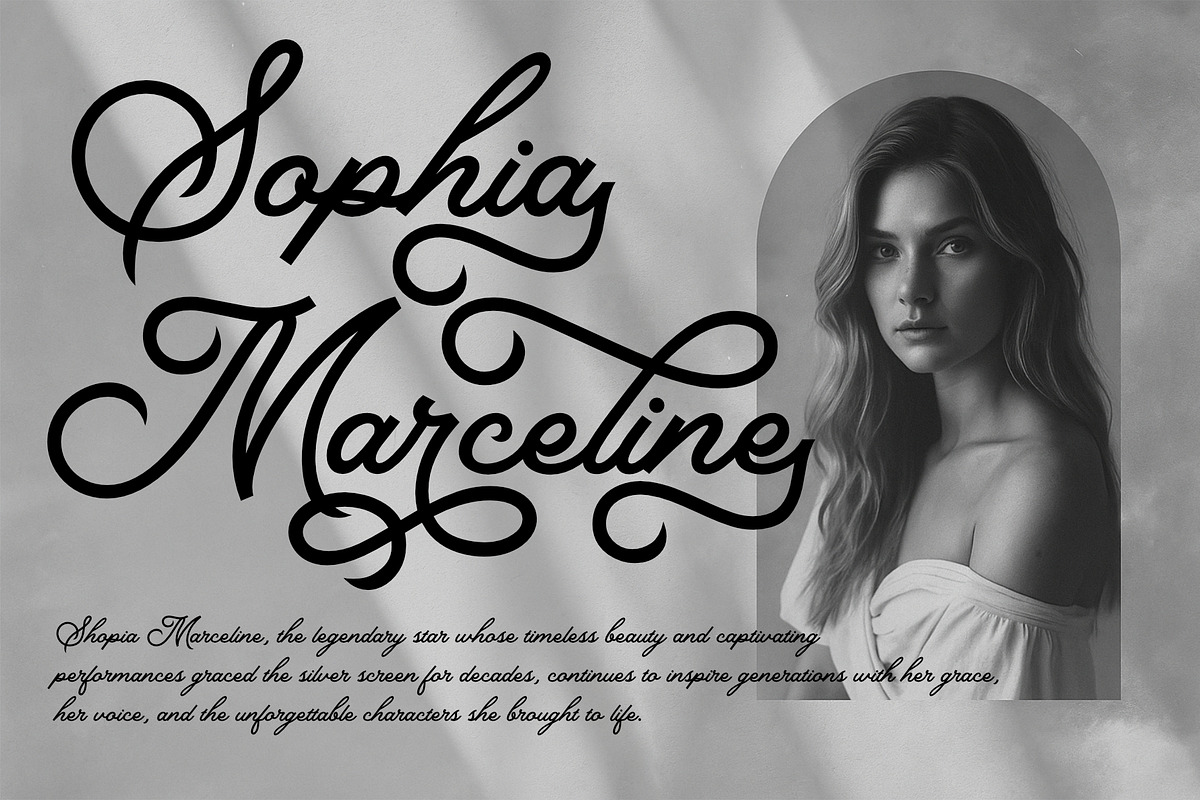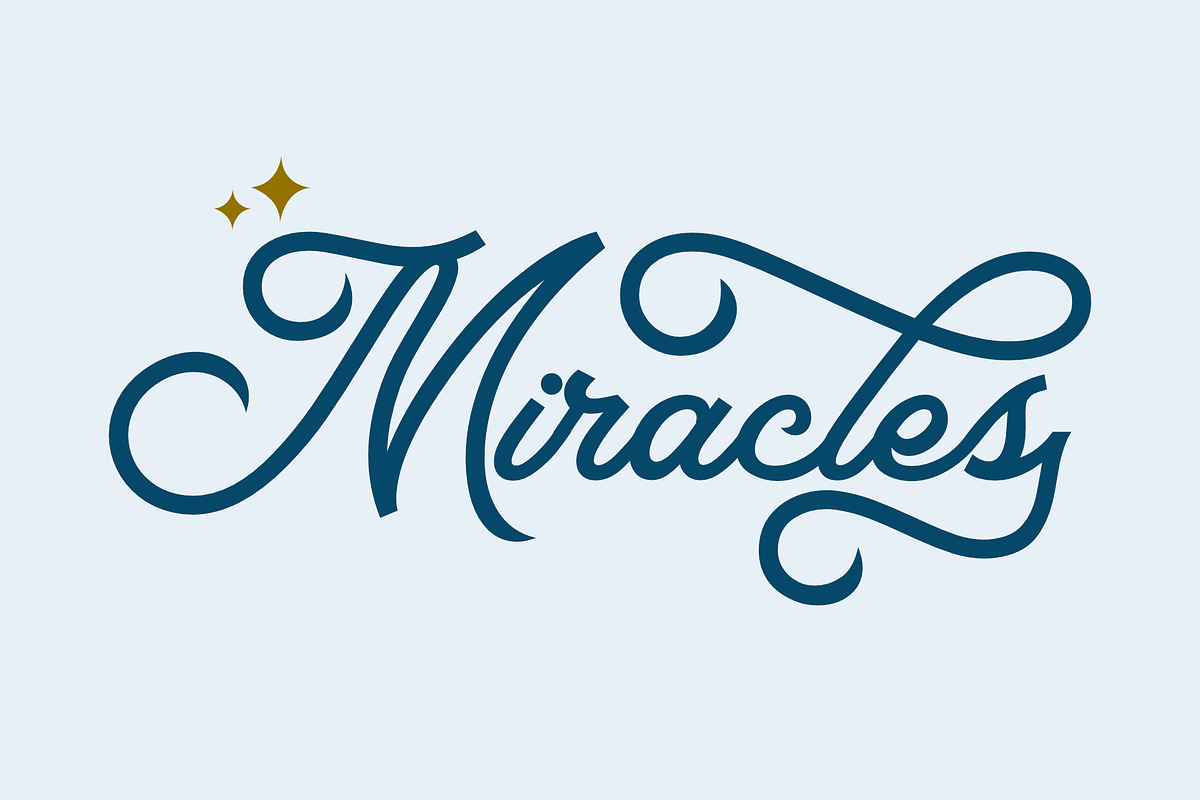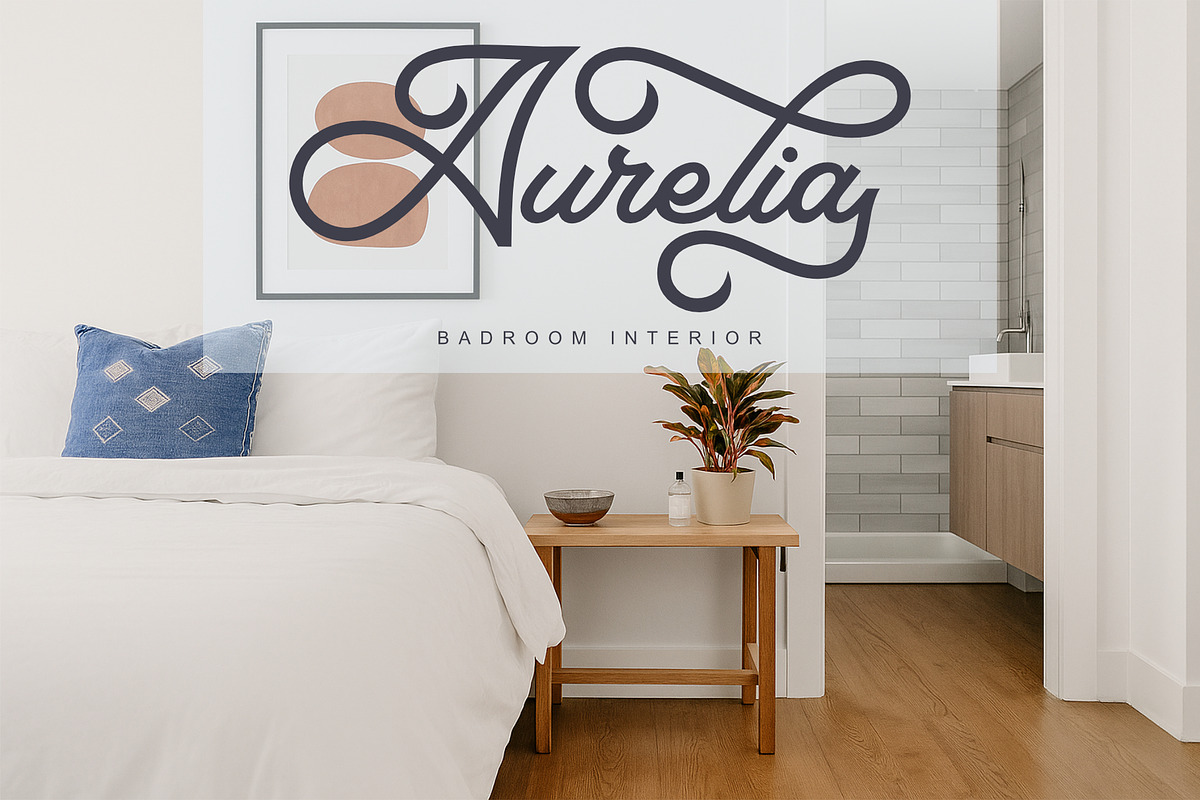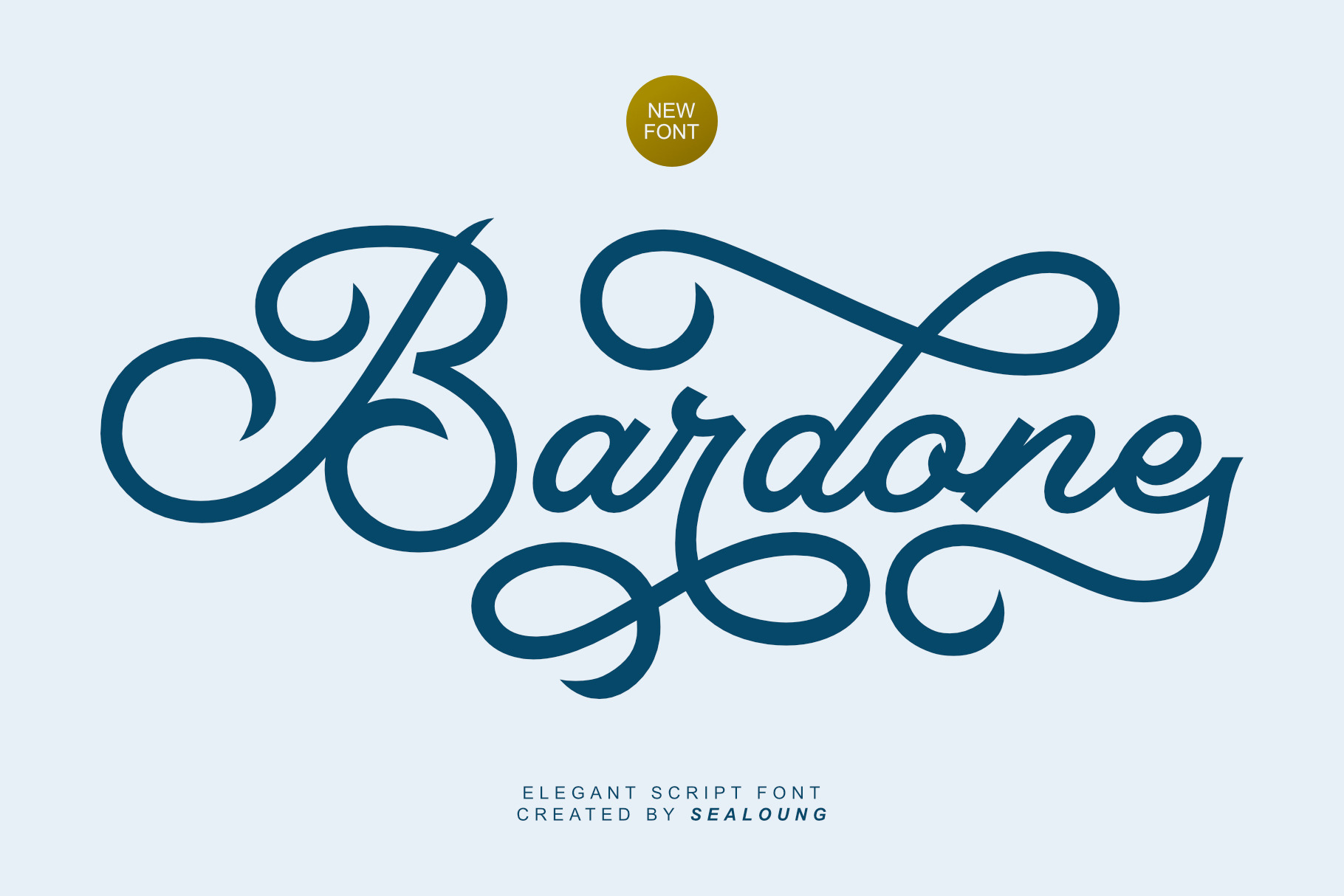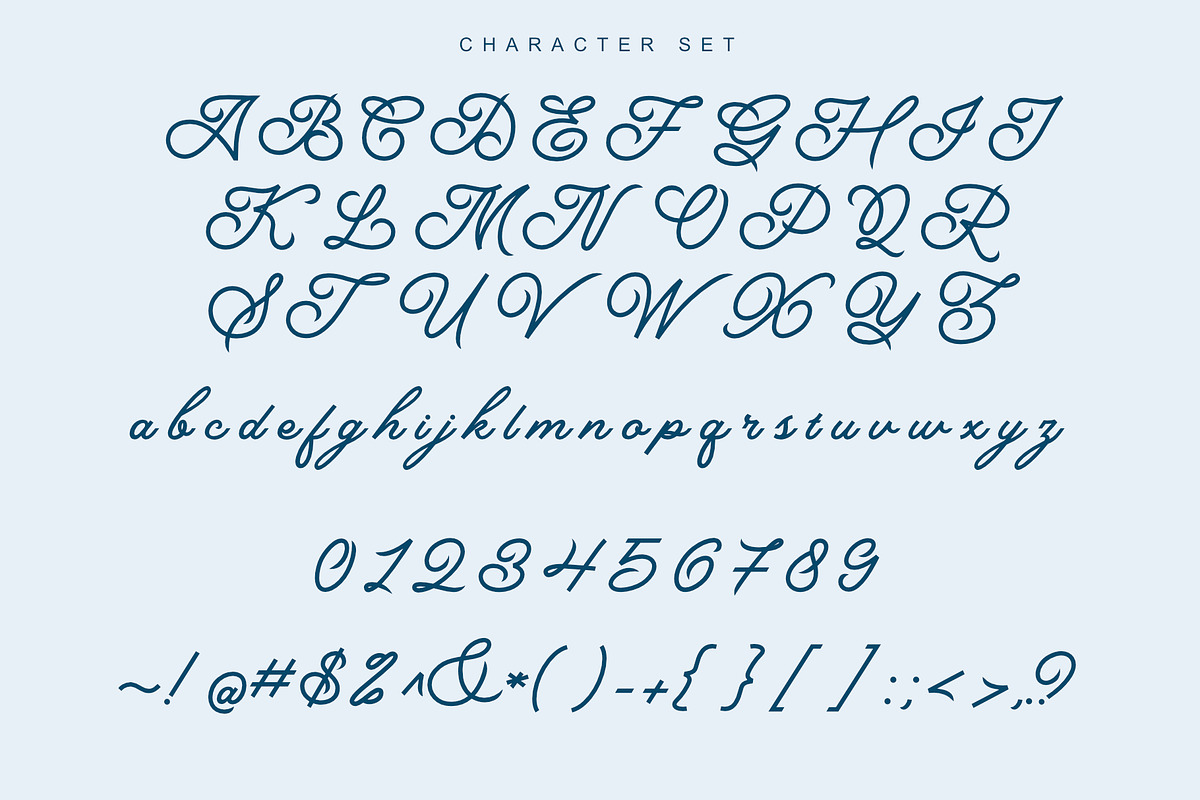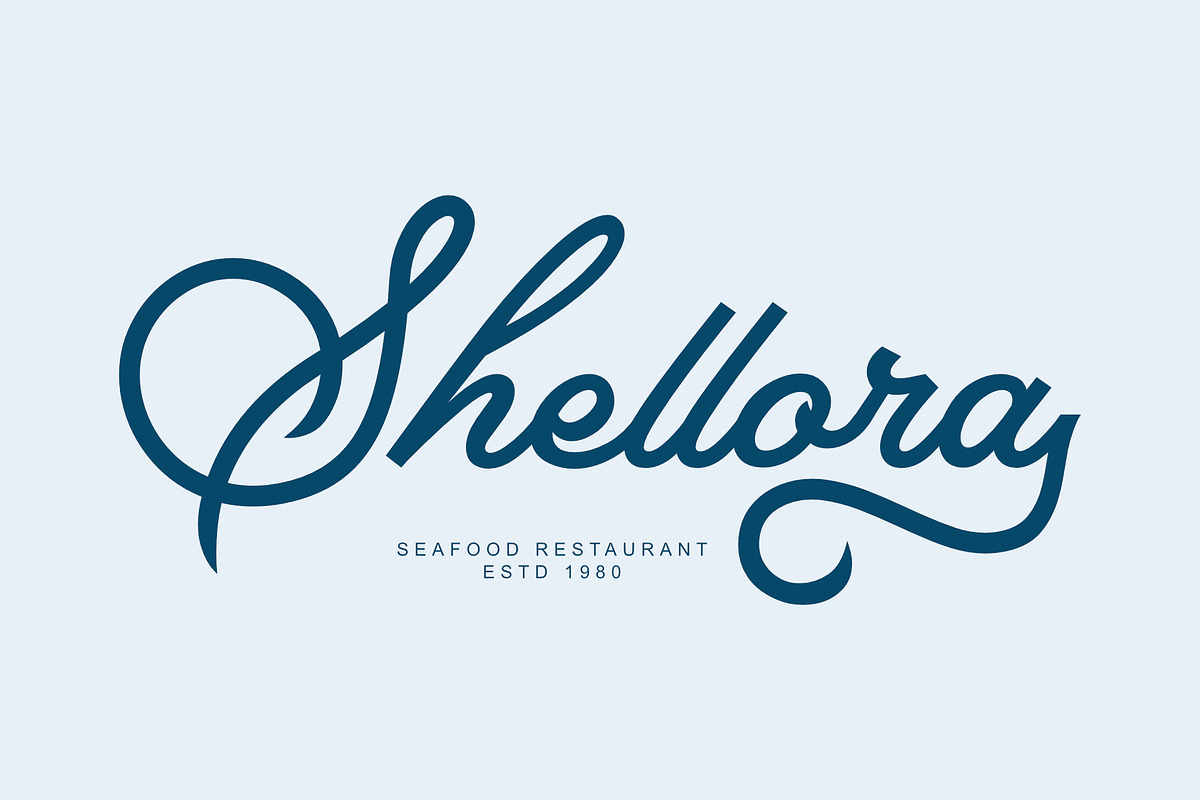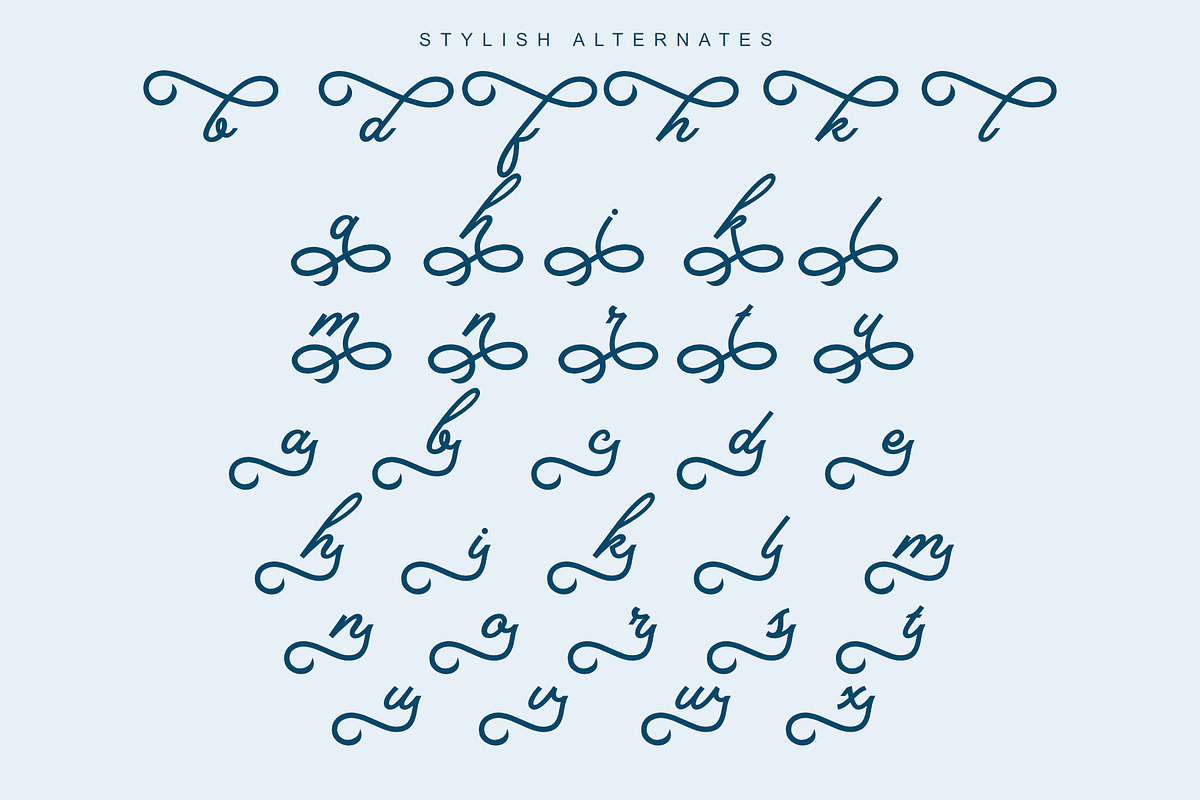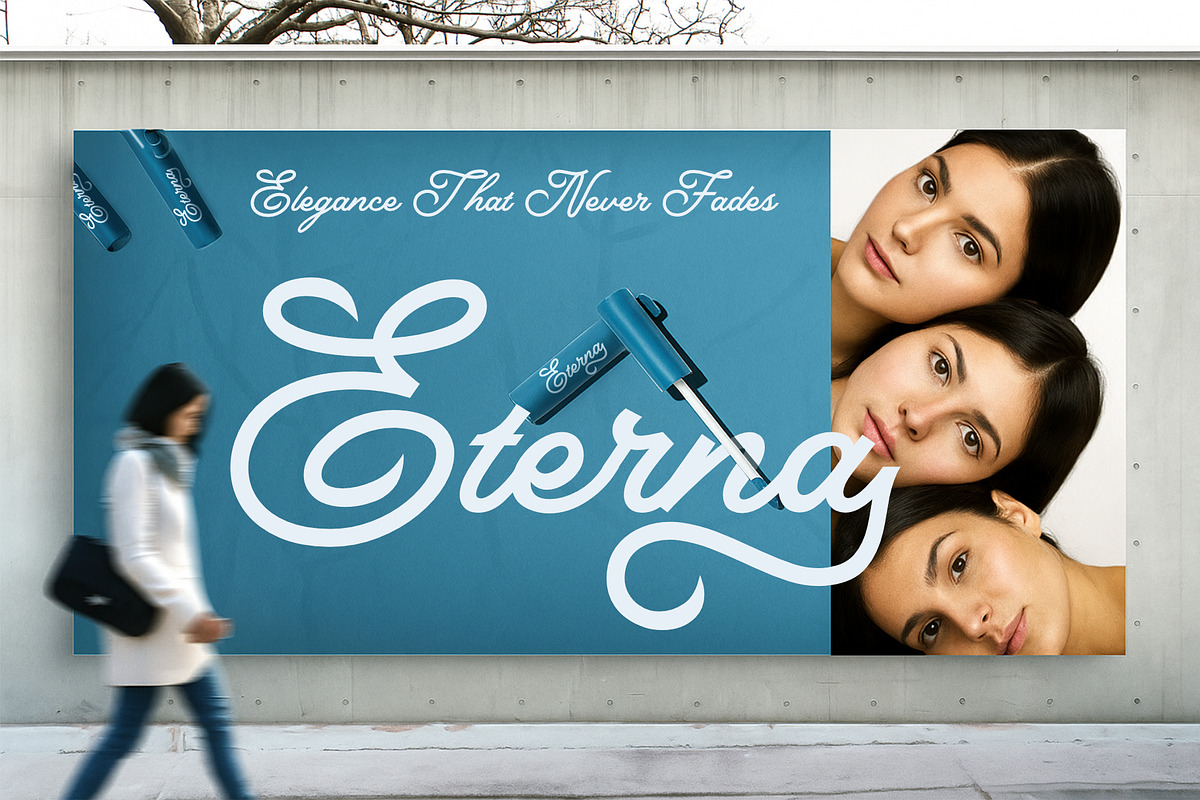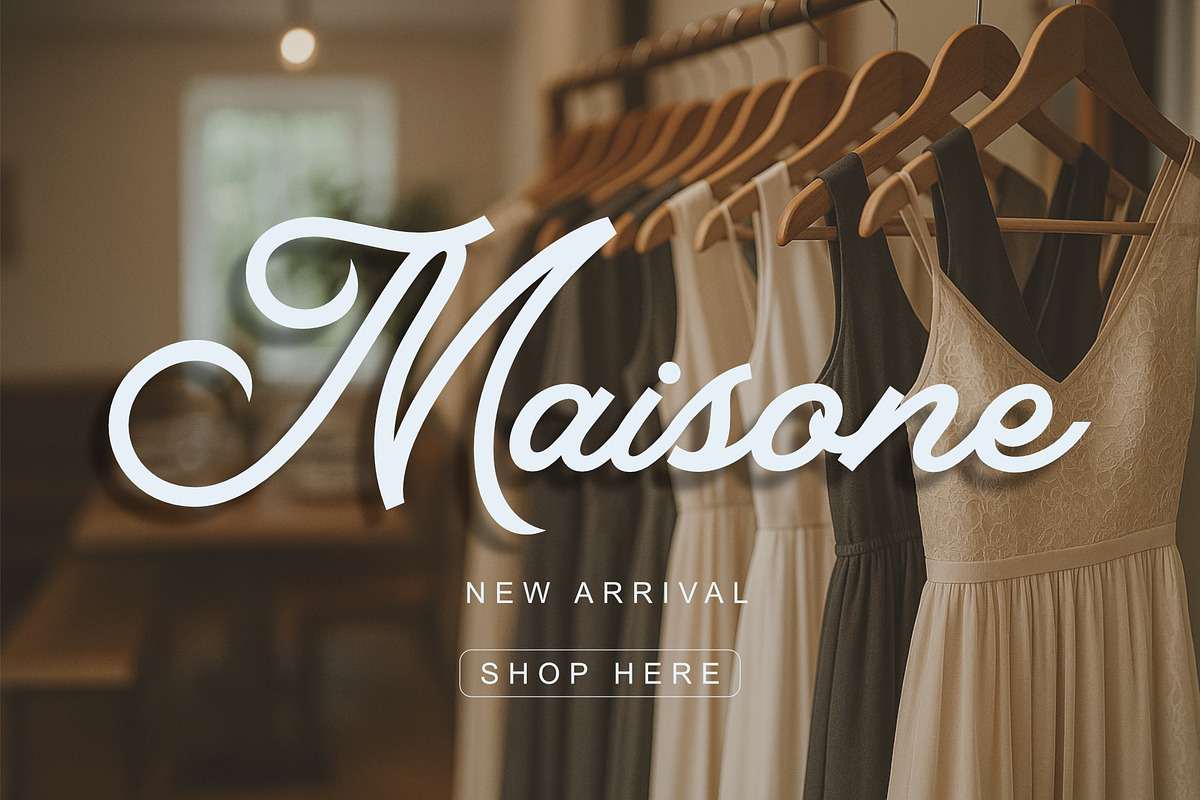
Bardone - Elegant Script Font
Bardone is a modern casual script font with an elegant touch, perfect for a wide range of creative projects such as crafting, branding, logos, invitations, stationery, wedding designs, social media posts, advertisements, product packaging, product designs, labels, posters, photography, special events, and more.
Uppercase letters
Lowercase letters
Numbers & multilingual support
Stylistic alternates